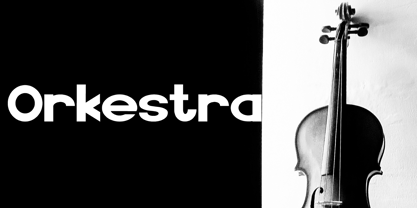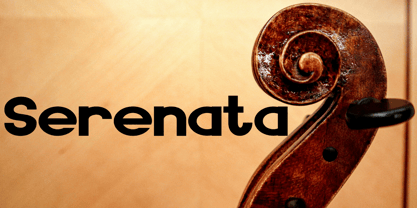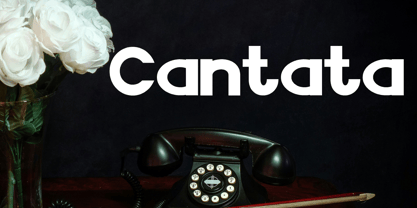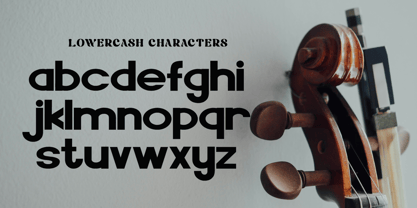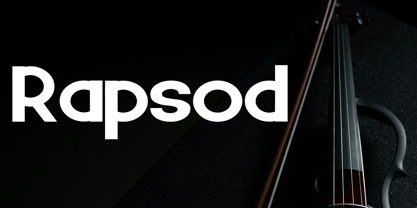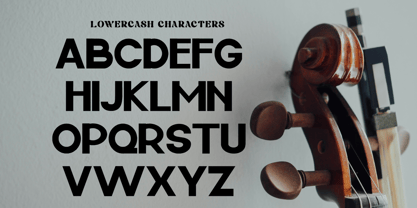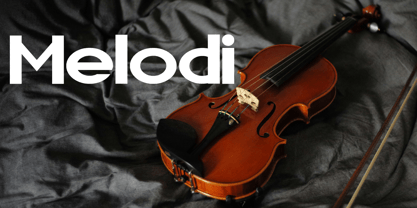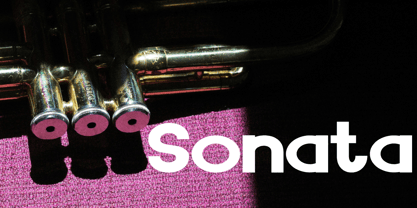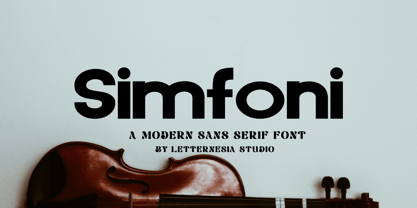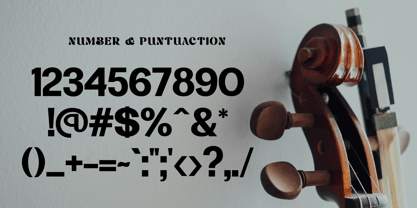
Simfoni
by Letternesia studio
The Simfoni Font Family was designed by Ta Siyo and published by Letternesia studio. Simfoni contains 2 styles and family package options. More about this family
Simfoni is an elegant typeface inspired by the beauty of music and harmony. With smooth curves and refined details, it brings a sense of sophistication and romance to your designs. Perfect for wedding invitations, branding, packaging, editorials, and creative projects, Simfoni adds a timeless artistic touch that feels both graceful and modern.Simfoni is a stylish and timeless font that blends elegance with creativity. Inspired by the harmony of music, it’s perfect for logos, invitations, packaging, and artistic projects.
Designers: Ta Siyo
Foundry: Letternesia studio